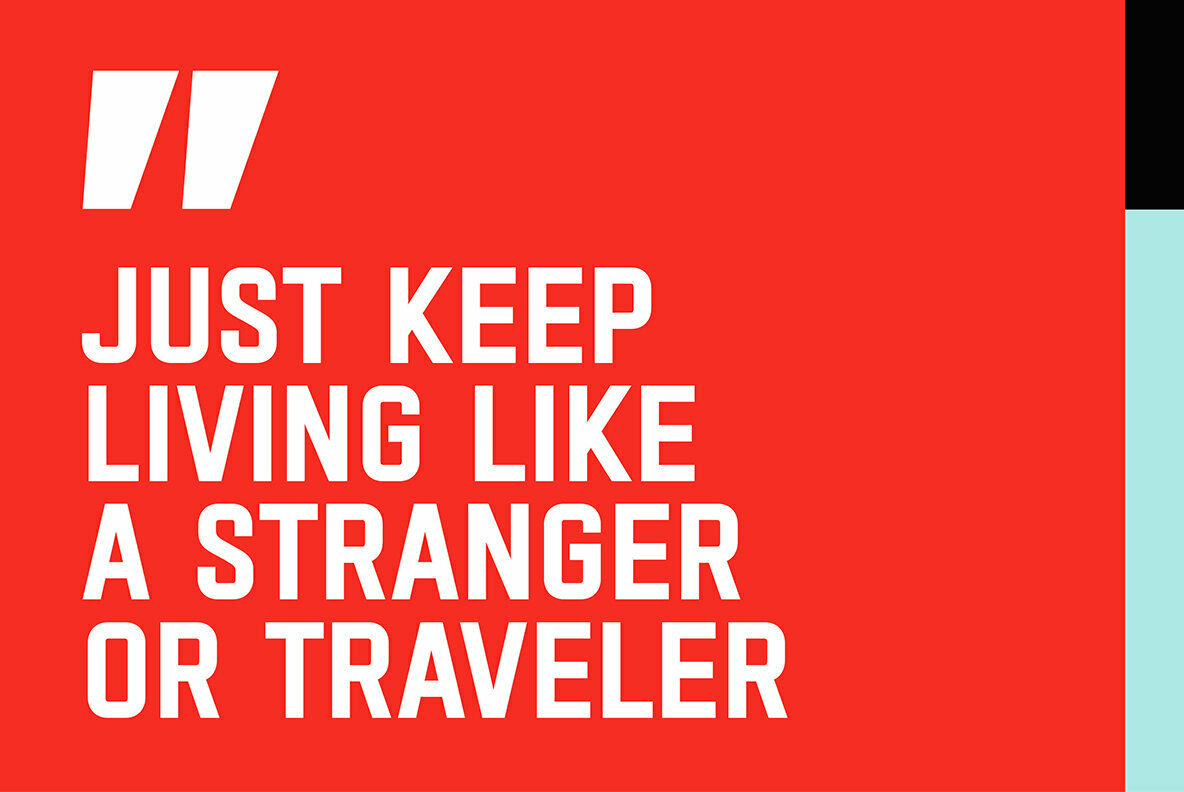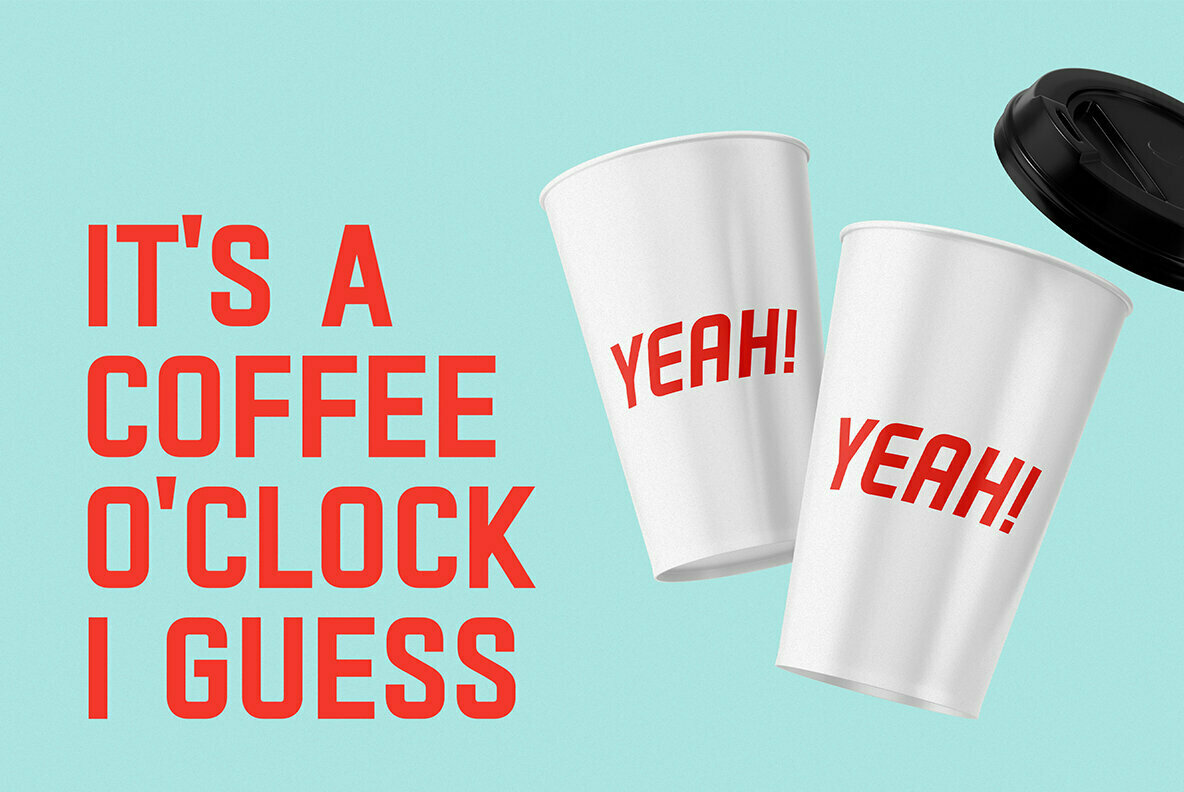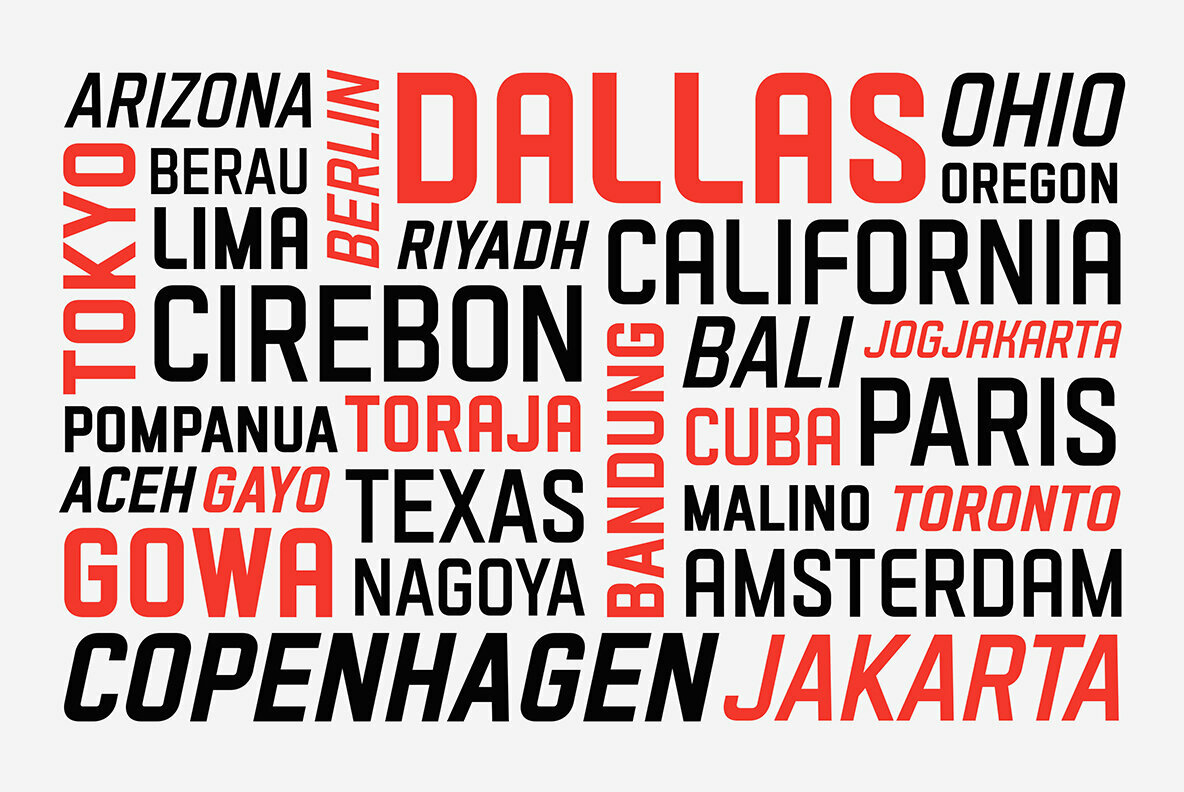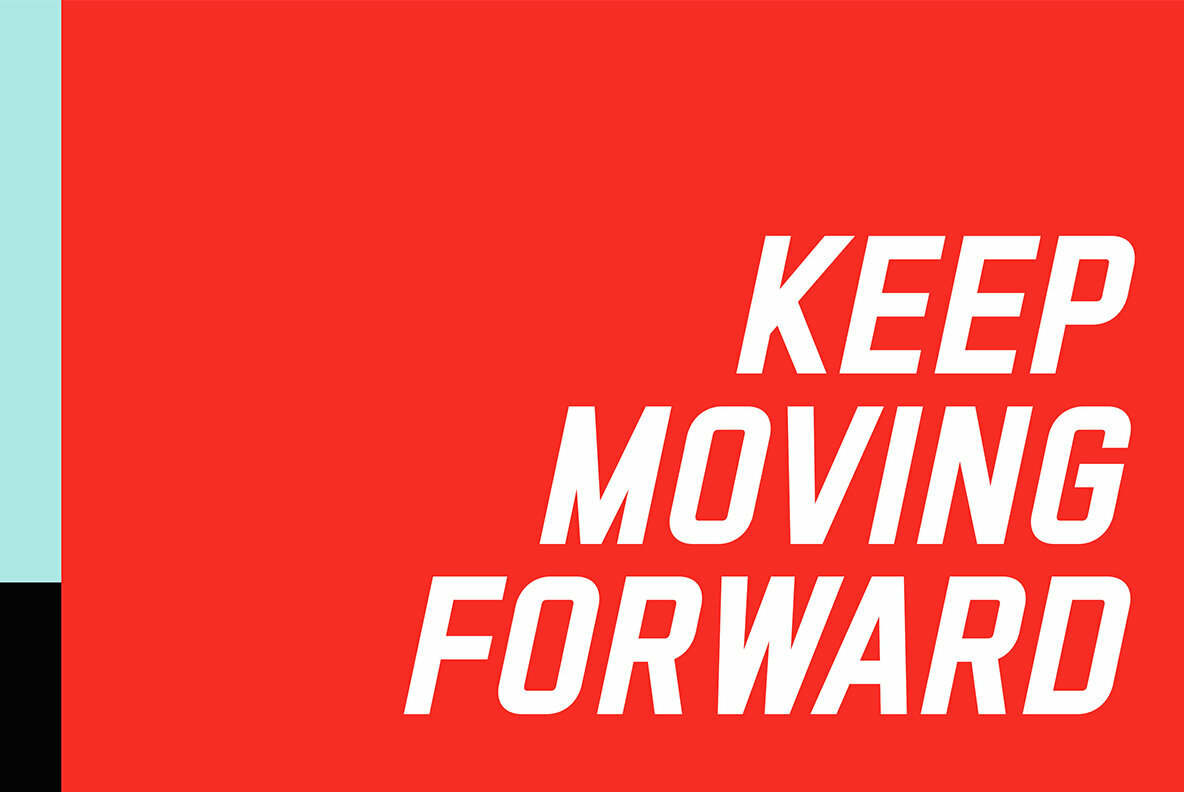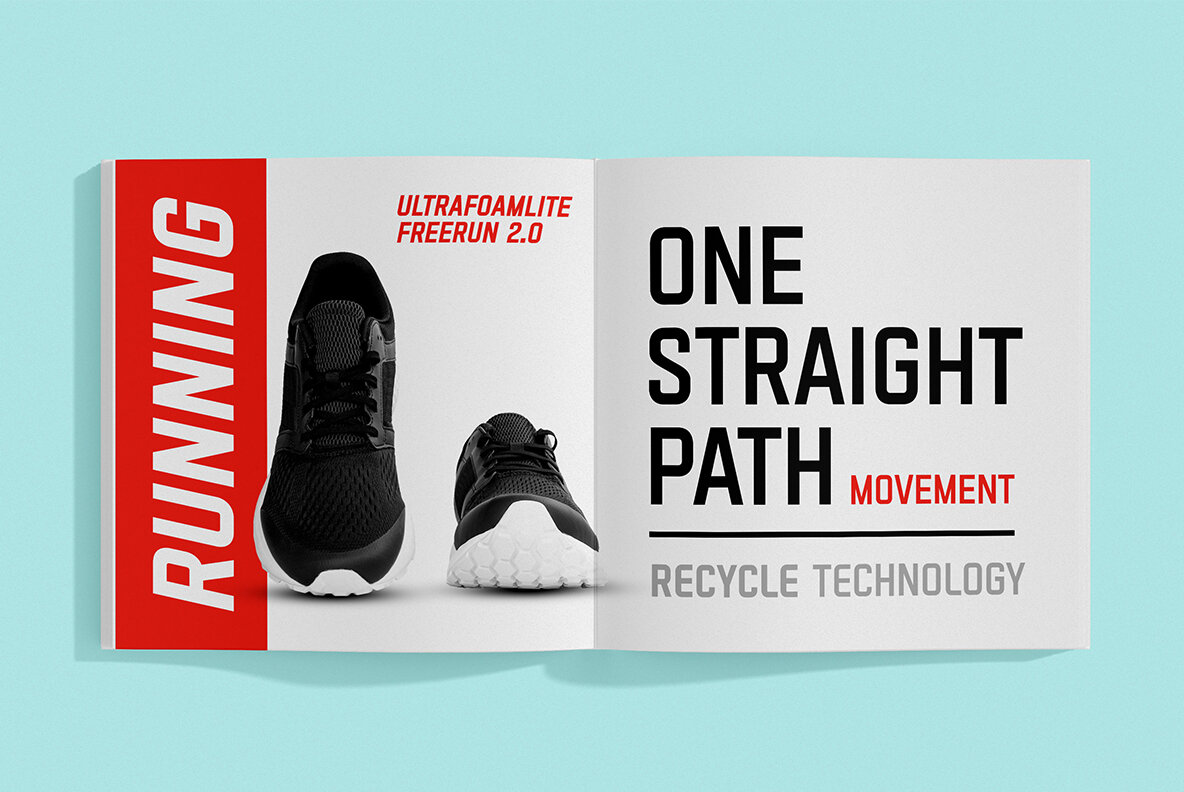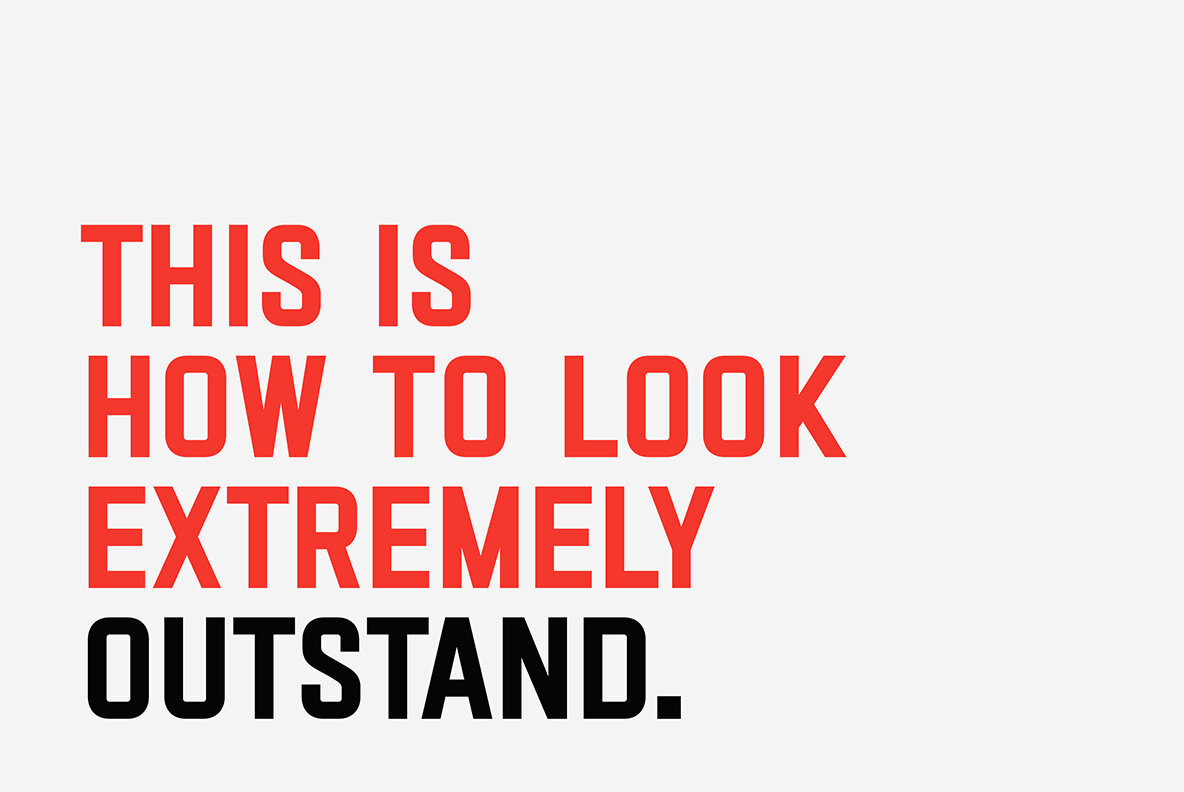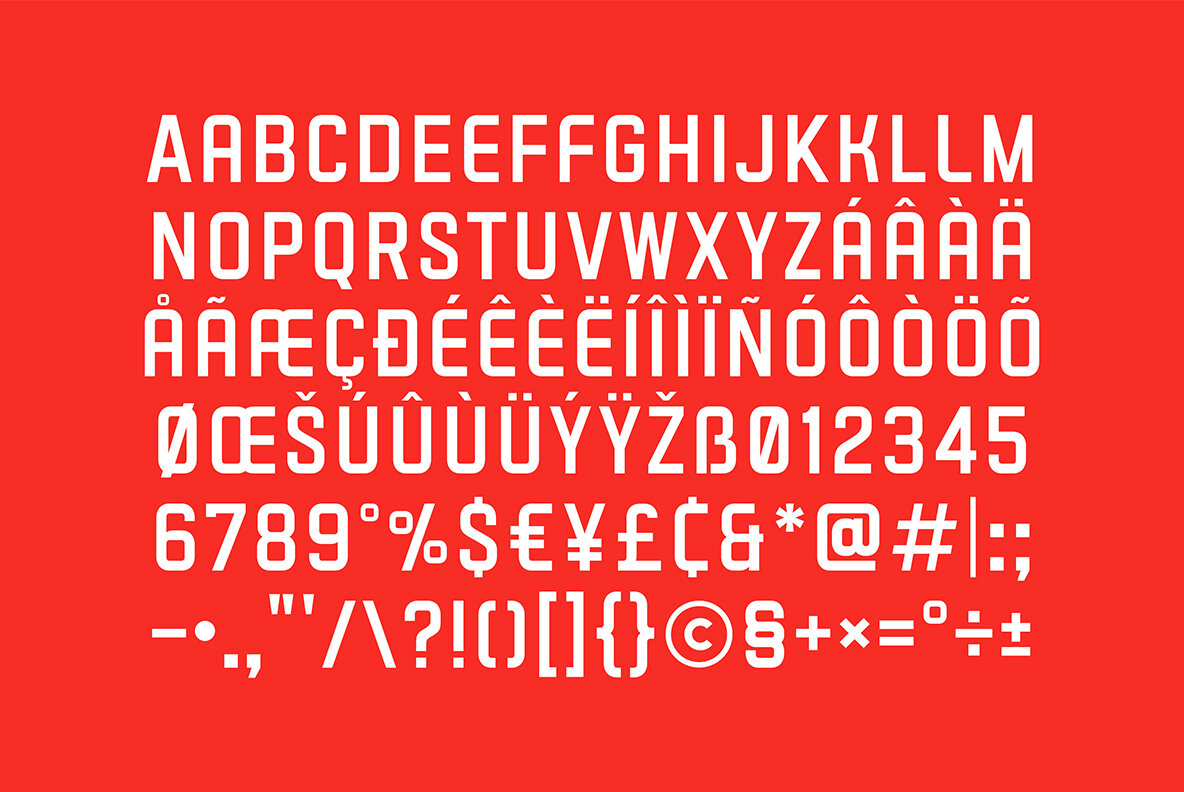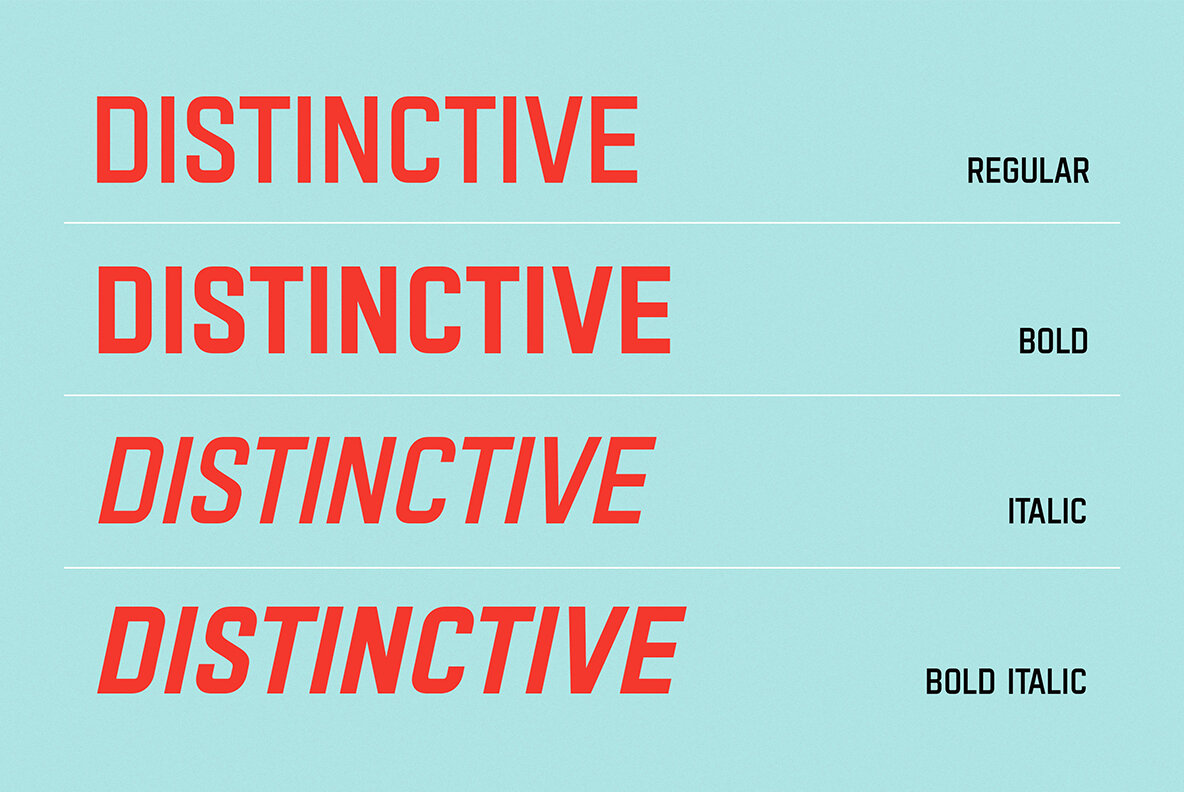
Vectro Font
ABOUT THIS FONT Vectro is a casual and clean condensed sans font designed to make powerful corporate branding, copy ads, logotype, and much more. FONT FEATURES SOFTWARE RECOMMENDATION